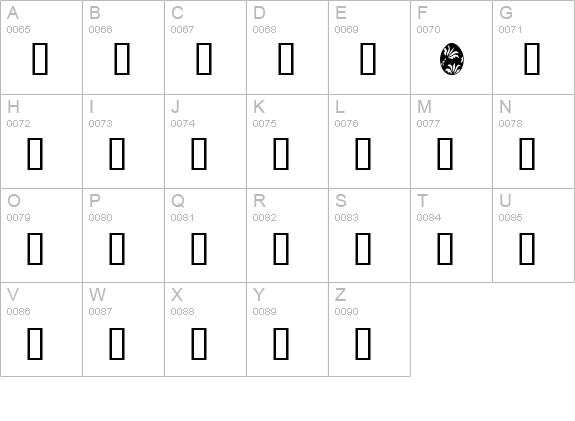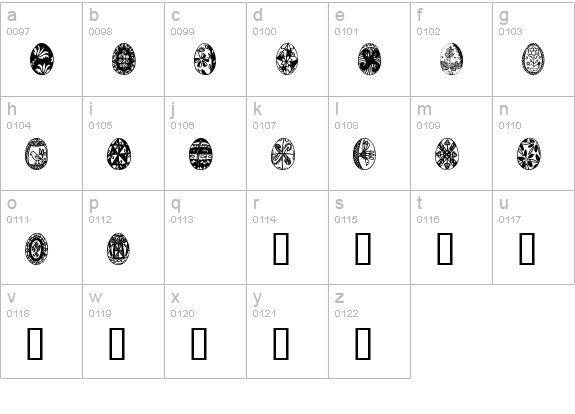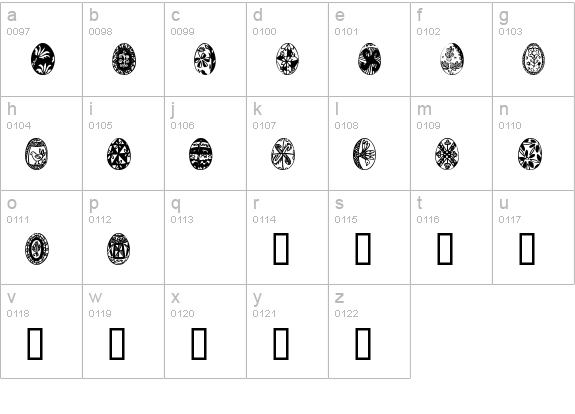
EasterTime Font Details
EasterTime font is a delightful and whimsical typeface that perfectly captures the spirit of Easter. With its playful curves and charming details, this font is sure to bring a touch of joy to any project. Whether you're designing invitations for an Easter egg hunt or creating a festive greeting card, EasterTime font will add a fun and festive element to your designs. What sets EasterTime font apart is not only its eye-catching design, but also the fact that it is completely free to use. That's right, this fantastic font is freely available to download at FontsMarket.com. It's a perfect choice for designers, artists, and anyone who wants to add a touch of Easter magic to their creations without breaking the bank. The versatility of EasterTime font is another reason to love it. With its wide range of characters and glyphs, this font can be used in a variety of design projects. From headlines to body text, EasterTime font will bring a unique and charming flair to your typography. So why wait? Download EasterTime font today and let your creativity take flight. Whether you're designing for print or web, this font will add a touch of whimsy and delight to your projects. Make this Easter season even more special with the help of EasterTime font, available for free at FontsMarket.com.